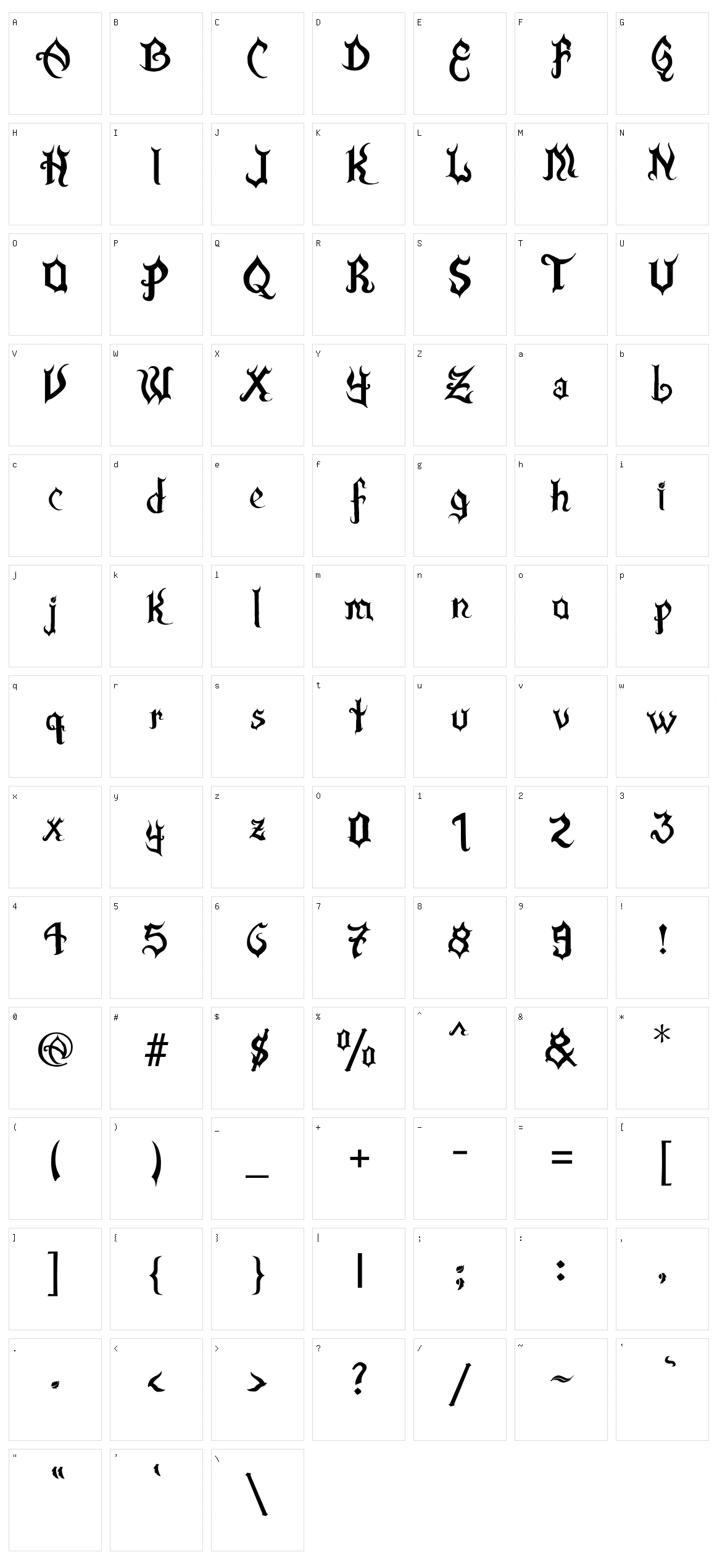
La Flama y La Espina
Designed by: Juan Casco
La Flama y La espina
(Ditono)
Spiked font .it is a opposite of Pasión Acústica being twice a perfect complement